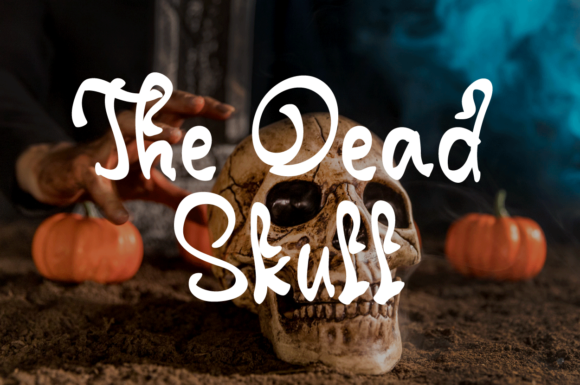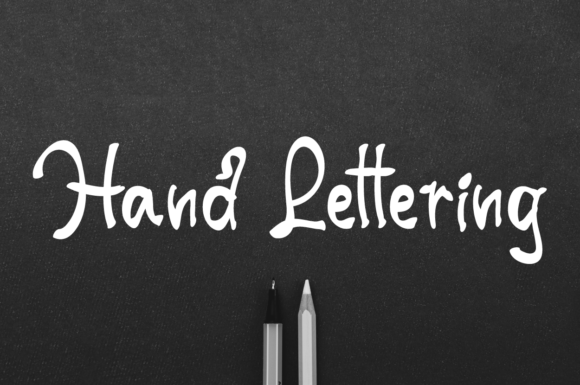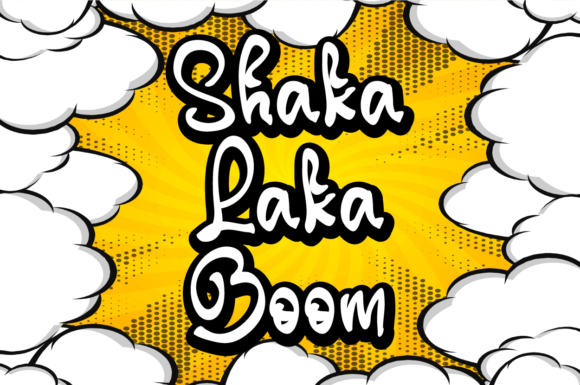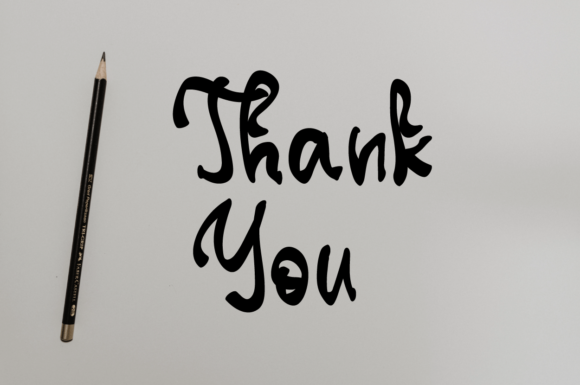
Scary Home Font
About Scary Home Font
Scary Home is a lovely handwritten font that looks beautiful, tidy, and sophisticated. It is the perfect fit for any project that requires an original, natural-looking typeface.